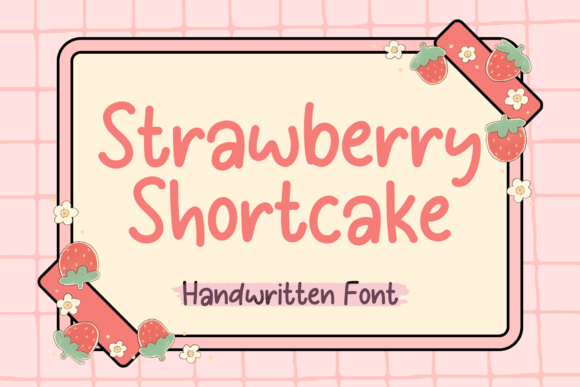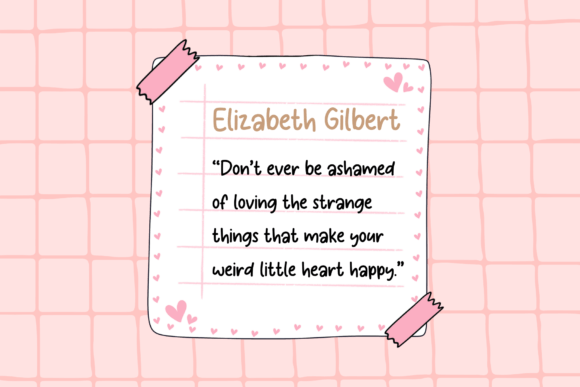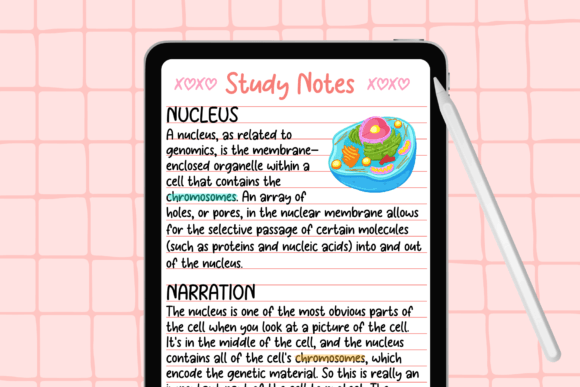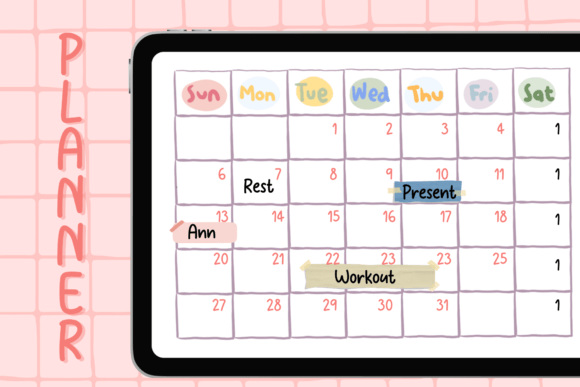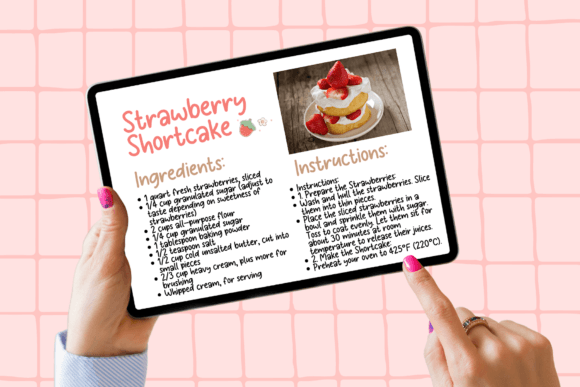
Strawberry Shortcake Font
Introducing Strawberry Shortcake – a whimsically charming handwritten font that embodies a spirit of fun and authenticity. Designed with versatility in mind, it’s an ideal choice for an array of creative designs. Whether it’s livening up blog posts, putting a unique spin on logos, enhancing branding elements, or adding a special touch to ads, Strawberry Shortcake is sure to catch the eye. It further excels in more personal projects like invitations, greeting cards, and planners. Even in decorative items or photo albums, this distinctive font stands out, lifting the overall appeal of your designs. Incorporate Strawberry Shortcake into your designs, and watch as it brings your projects to life!